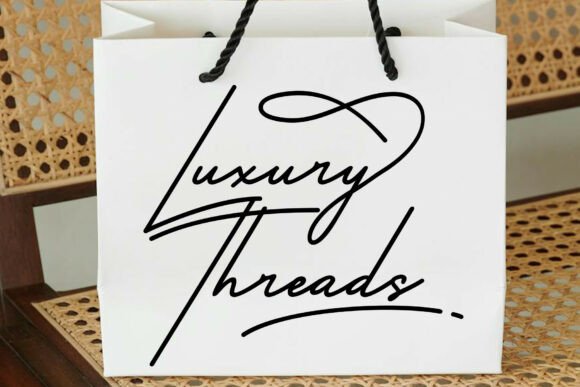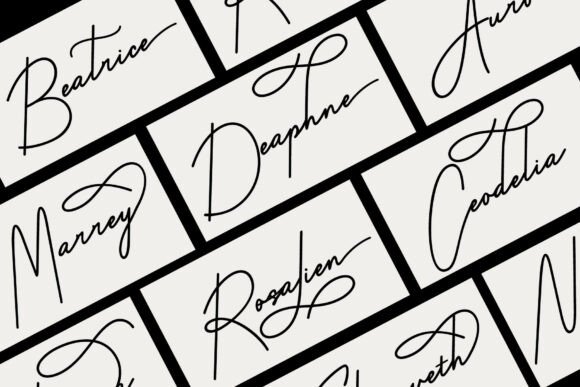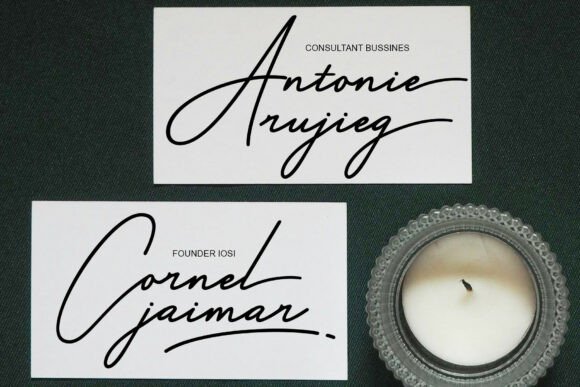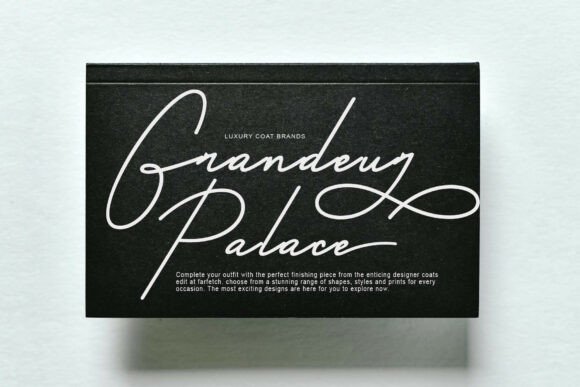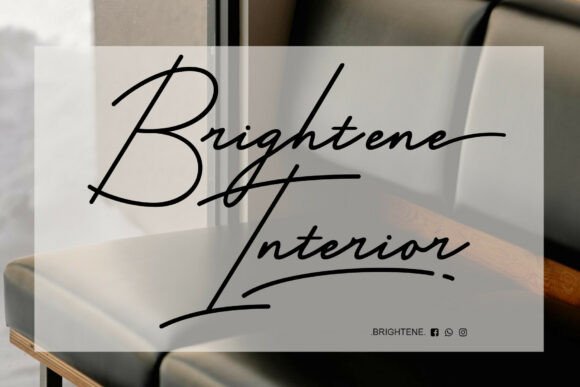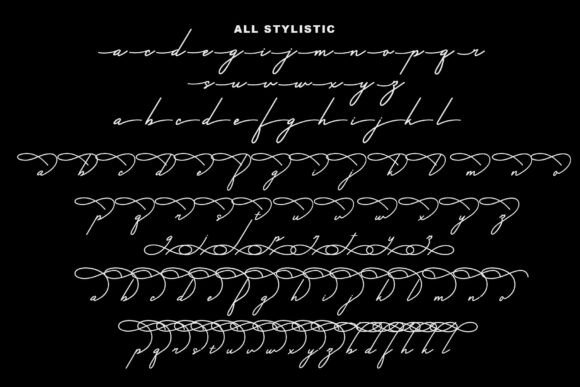
Unleashing Creativity with the Perfect Script Font
There’s nothing quite like the rush of finding the perfect font to bring your design to life. Remember that moment when you stumbled upon a typeface that seemed to capture the essence of your creative vision? For designers, this is a moment of pure joy – and it’s exactly what we’re about to experience with the Bridney Hallway Font.
This expressive and stylish handwritten script font is designed to evoke a modern, artistic vibe. With its fluid, energetic strokes and rhythmic baseline, Bridney Hallway Font feels both personal and professionally crafted. Whether you’re working on a book, magazine, logo, or branding project, this typeface is sure to add a touch of elegance and sophistication to your design.
What sets Bridney Hallway Font apart is its versatility and functionality. With features like uppercase, lowercase, numerals, and multilingual support, this font is a valuable addition to any designer’s toolkit. And with its Opentype, TruType, and Woff formats, you can use it across a range of platforms and projects. Get ready to unleash your creativity with the Bridney Hallway Font!
Bridney Hallway Font Key Features
- Unique Characteristics: Bridney Hallway Font features elegant, cursive script with a mix of modern and classic elements, creating a unique aesthetic that sets it apart from other fonts.
Bridney Hallway Font Review
I recently had the chance to work with the Bridney Hallway Font, and I must say, it has its charm. ✨ Here are some of the things I like about it:
- It’s a great choice for a classic, elegant look. The Bridney Hallway Font has a timeless quality that works well for both traditional and modern designs.
- The font is highly legible, making it perfect for body text or headings where clarity is key.
- It’s a great option for those looking for a font with a touch of sophistication.
However, like any font, the Bridney Hallway Font has its limitations. ⚠️ Here are some of the things that might hold you back:
- The font may feel a bit too formal for some designs, making it less versatile than other options.
- The Bridney Hallway Font can be quite dense, which may make it difficult to read at smaller sizes.
- It may not be the best choice for bold or dramatic designs, as it tends to be more understated.
Overall, I think the Bridney Hallway Font is a solid choice for those looking for a classic, elegant look. While it may have some limitations, it’s a great option for those who want a font that exudes sophistication and refinement.